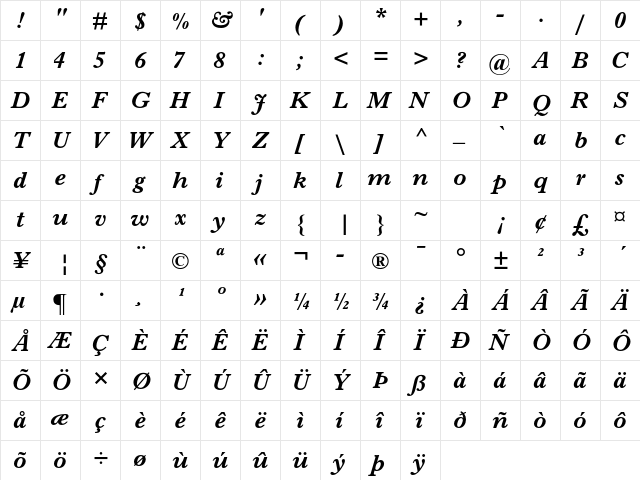
Imprint MT Std Bold Italic Font Preview
Imprint MT Std Bold Italic
Imprint MT Std Bold Italic Font Details
Design Context for Imprint MT Std Typeface
Imprint MT Std offers clean, dependable letterforms without strong stylistic allegiance, making it a practical choice for designers who need flexibility. Its italic angle brings a sense of urgency and motion to the letterforms. Its bold stroke weight gives it real presence on the page.
Pro Tip: Use Imprint MT Std for emphasis, pull quotes, and subheadings where its slanted energy can add rhythm to the layout.